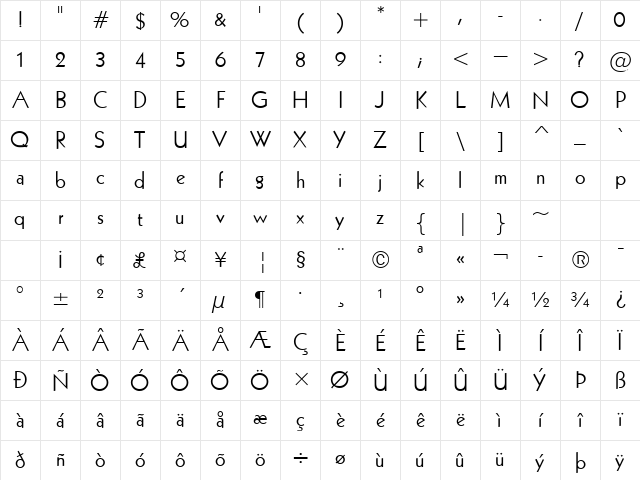
Geo 112 Normal
Geo 112 Family
Complete Geo 112 Normal glyph index. Displaying only characters natively supported by Geo 112 Normal font.
Design Context for Geo 112
Geo 112 is a composed and adaptable typeface that performs quietly and consistently across a wide range of design contexts.